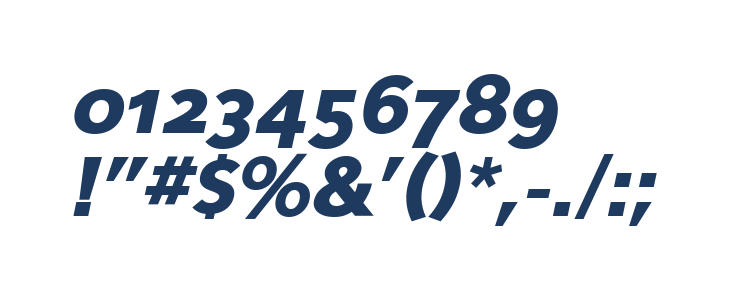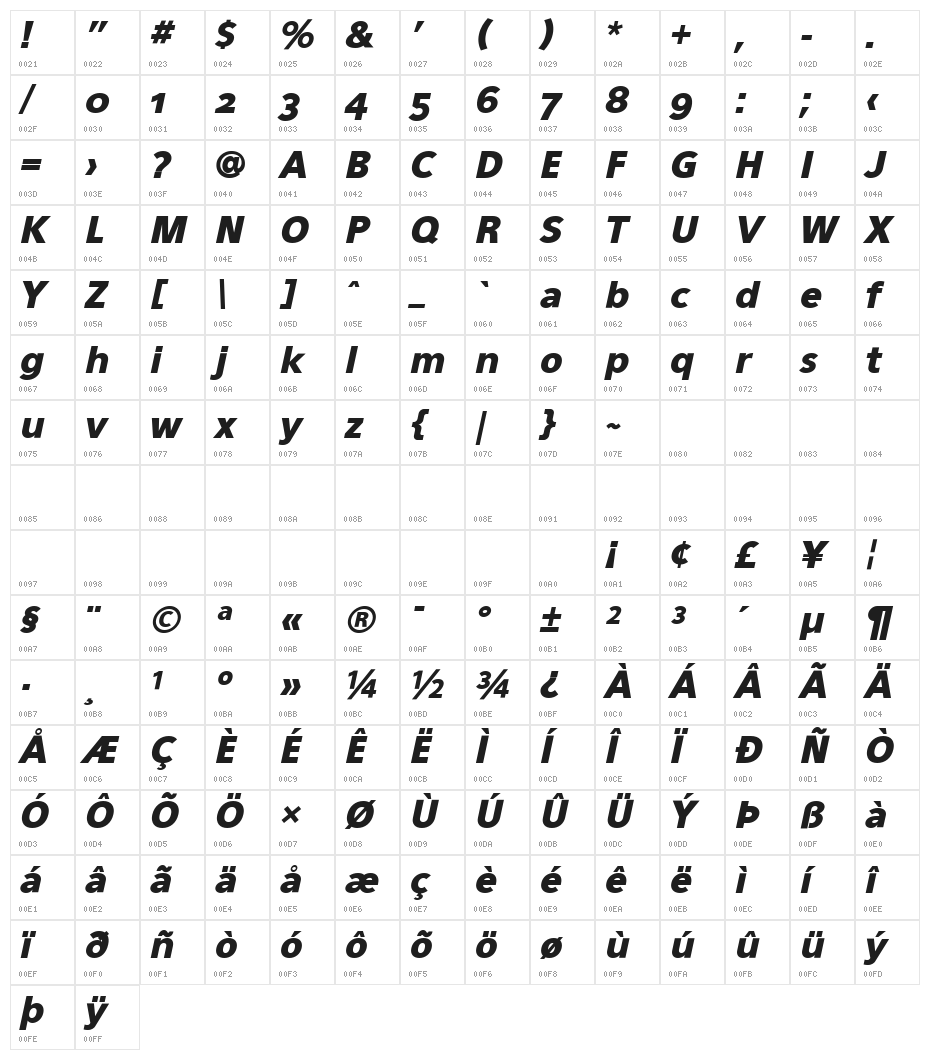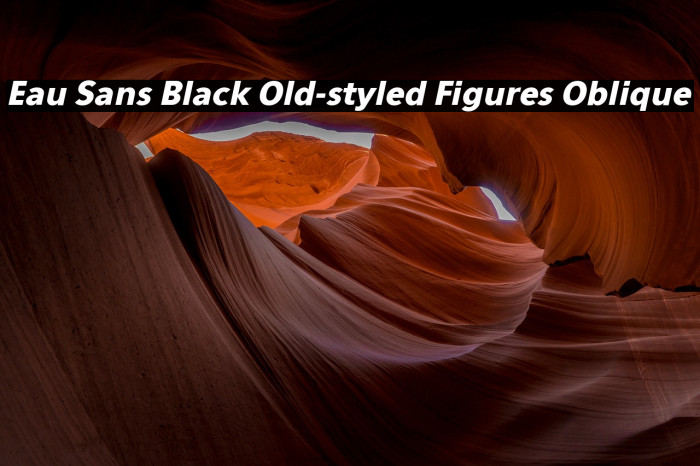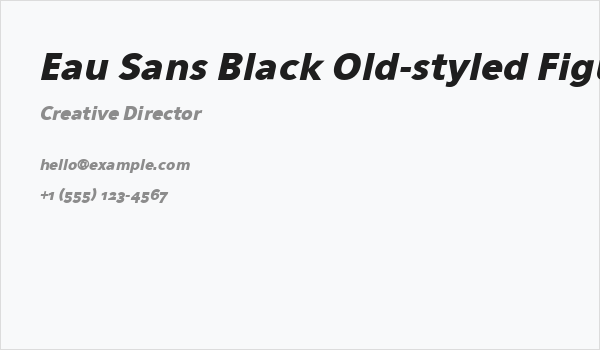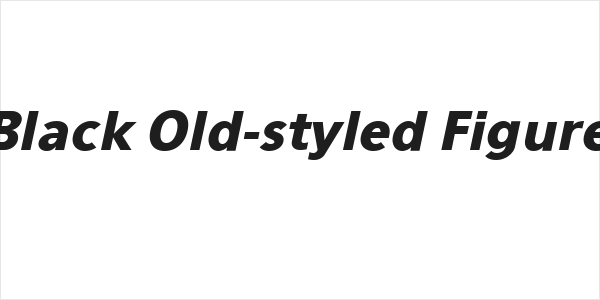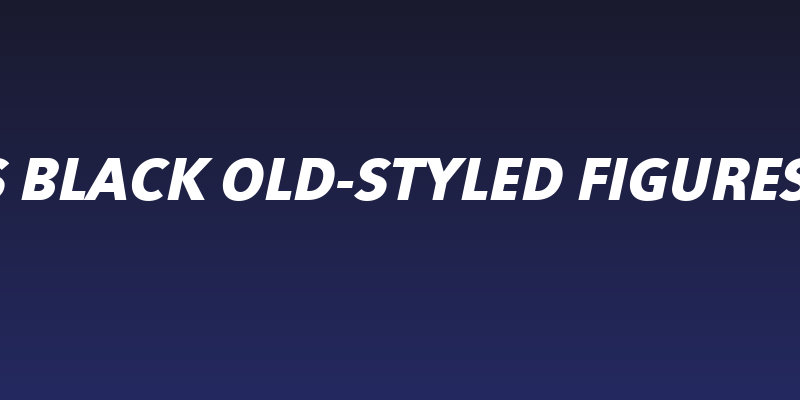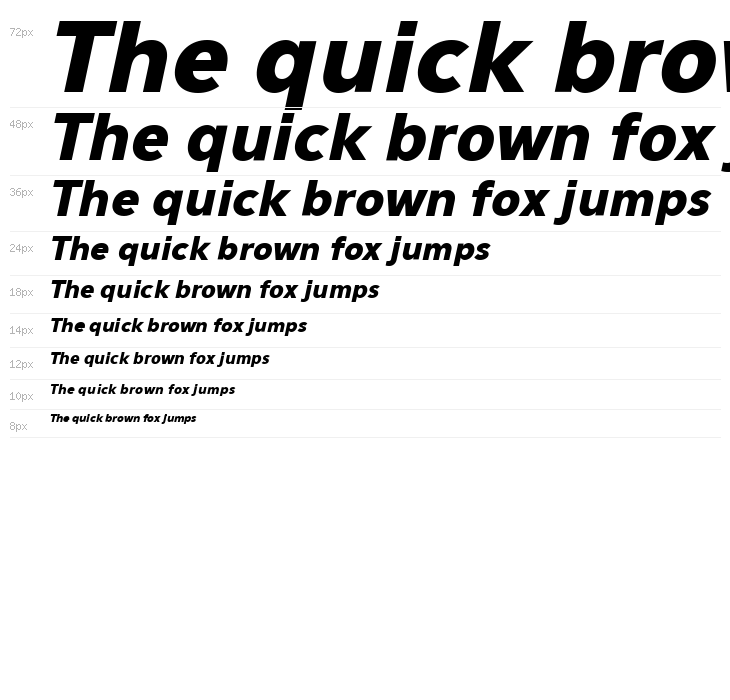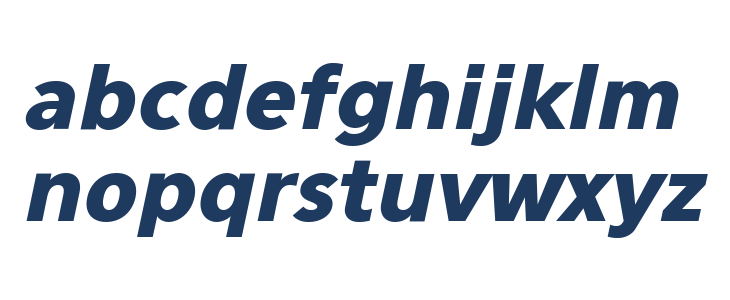
Eau Sans Black Old-styled Figures Oblique Font
Eau Sans Black Old-styled Figures Oblique Description
This font exhibits a bold and dynamic style with a strong presence. The characters are slightly slanted, giving it an oblique appearance that adds a sense of movement and modernity. The strokes are thick and consistent, providing a robust and confident look. The uppercase and lowercase letters are well-proportioned, maintaining clarity and readability. The numerals and special characters are designed to match the boldness of the alphabet, ensuring uniformity across all text elements. This font is ideal for making a statement, with its powerful and assertive design.
| Use Case | Headlines, Logos, Advertising |
| Proposed Projects | Ideal for branding, advertising, headlines, and any project requiring a bold, modern look. |